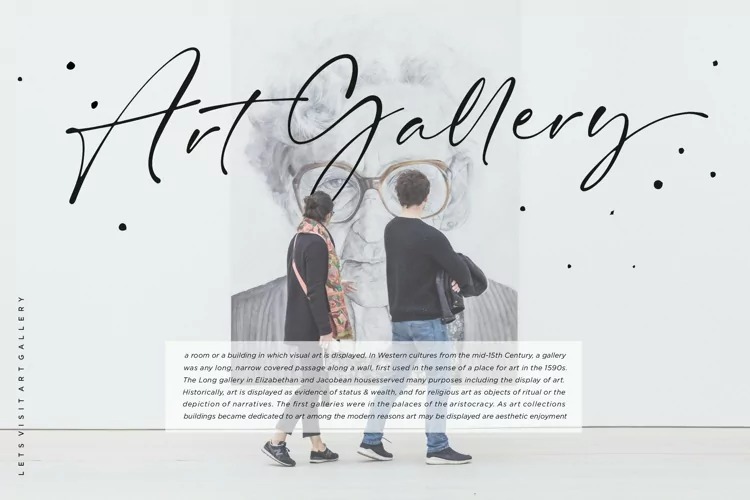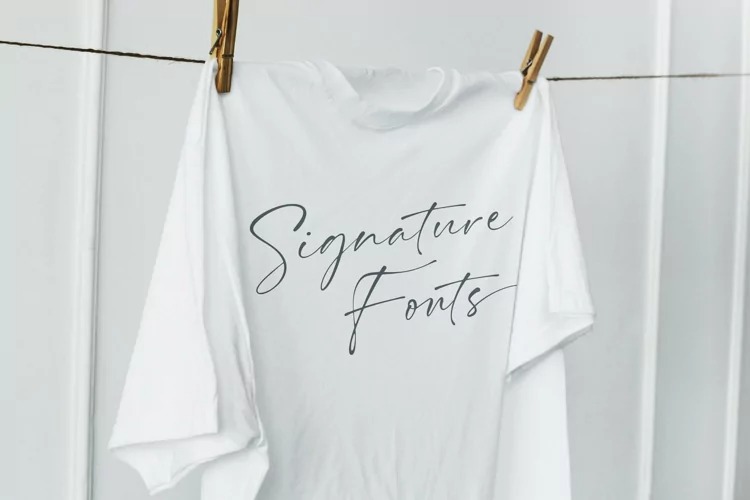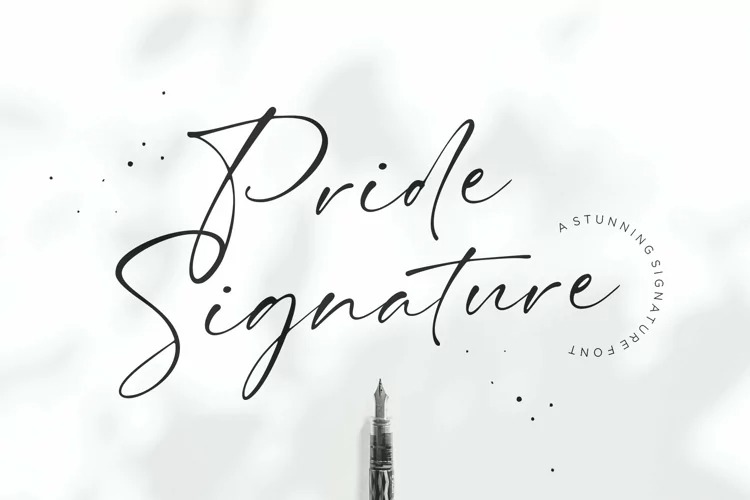
Pride Signature Font
This is an elegant handwritten unique flow typeface created by Letteralle with natural and organic look. Each letter is deliberately imperfect to make it look more natural and charming. Pride Signature comes with multilingual support, long range ligature, and ending swash from a-z.
Pride Signature is perfect for many design needs such as merch, T-shirts, titles, book covers, social media posts, websites, events, and many more.